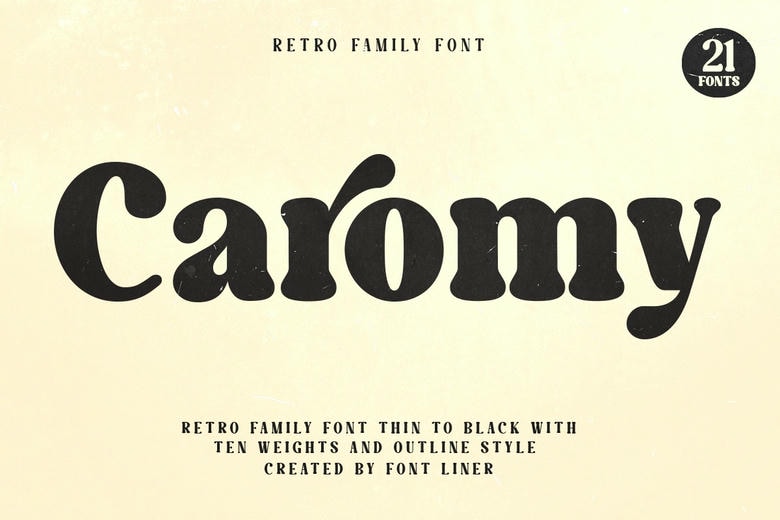
Caromy Font
With Caromy you can bring some retro styles into your graphics by using this striking and assertive typeface that balances slightly dated looks with contemporary flexibility. With its soft curves, chunky shapes, and highly distinctive letterforms, Caromy is ideal to design outstanding headlines, branding, posters, logos and retro packagings.
Caromy Serif Font